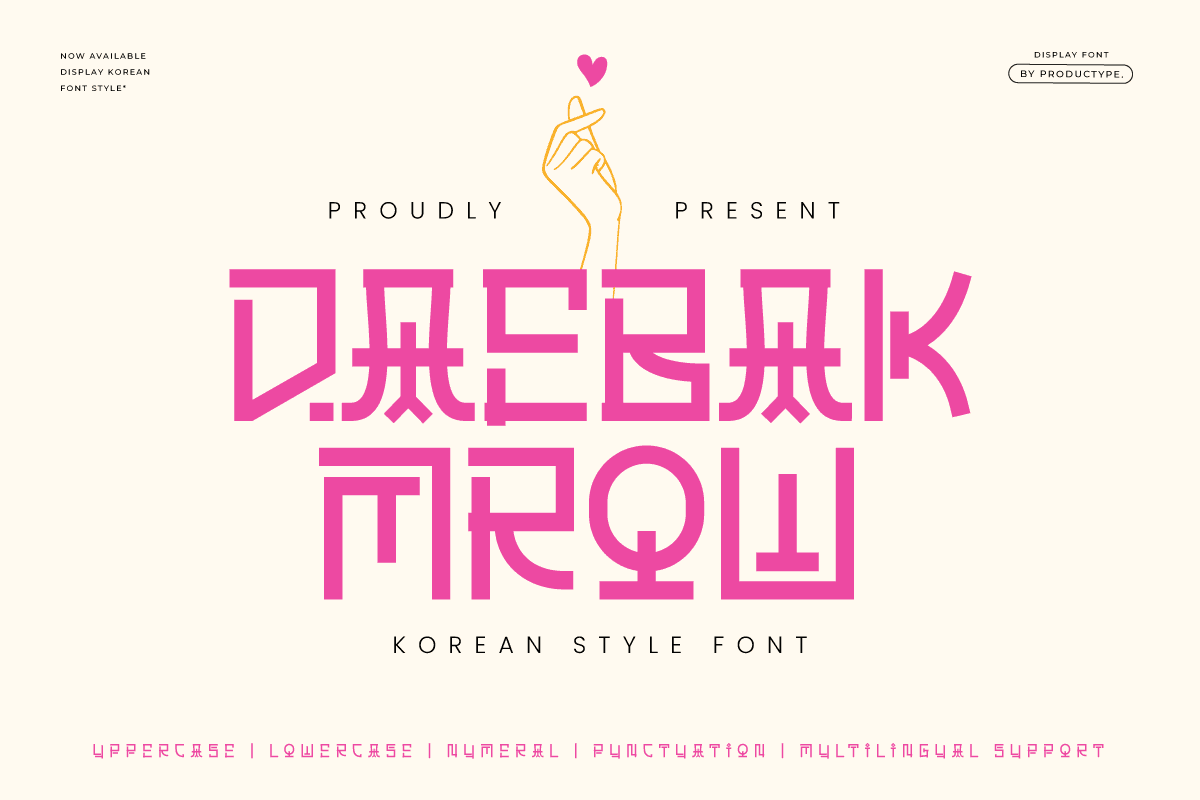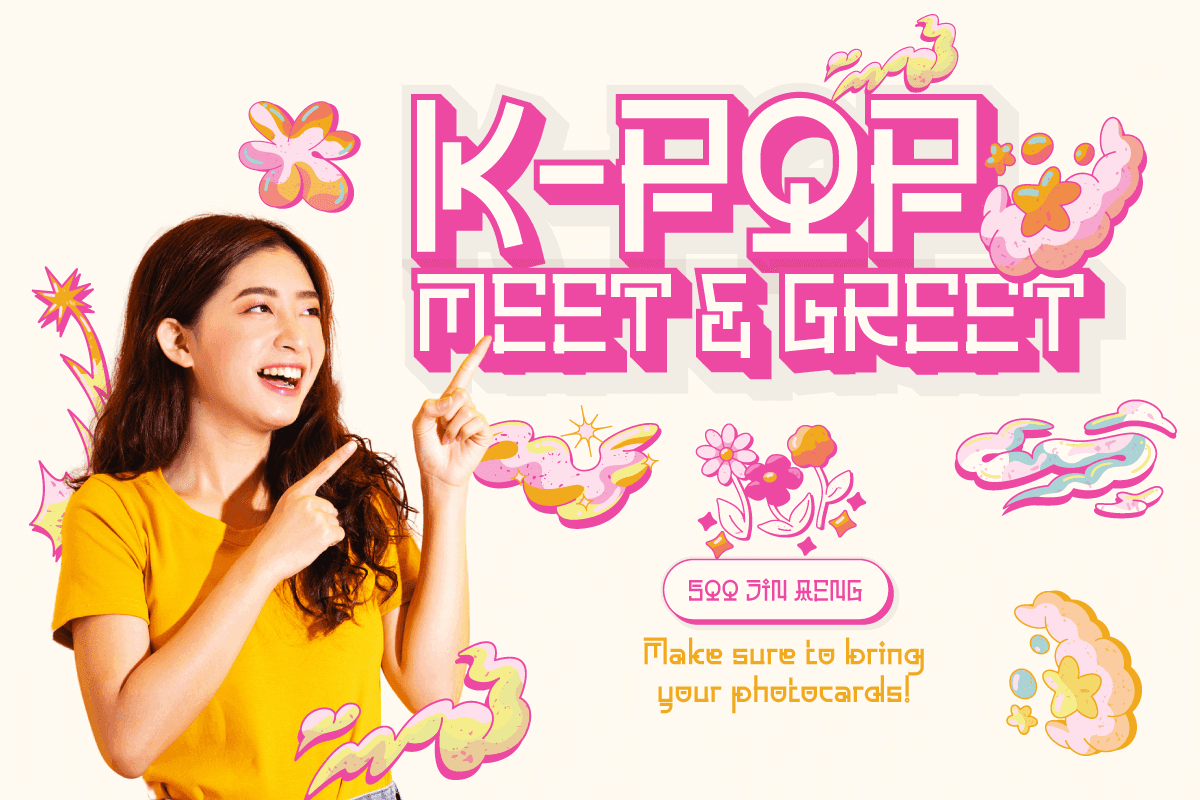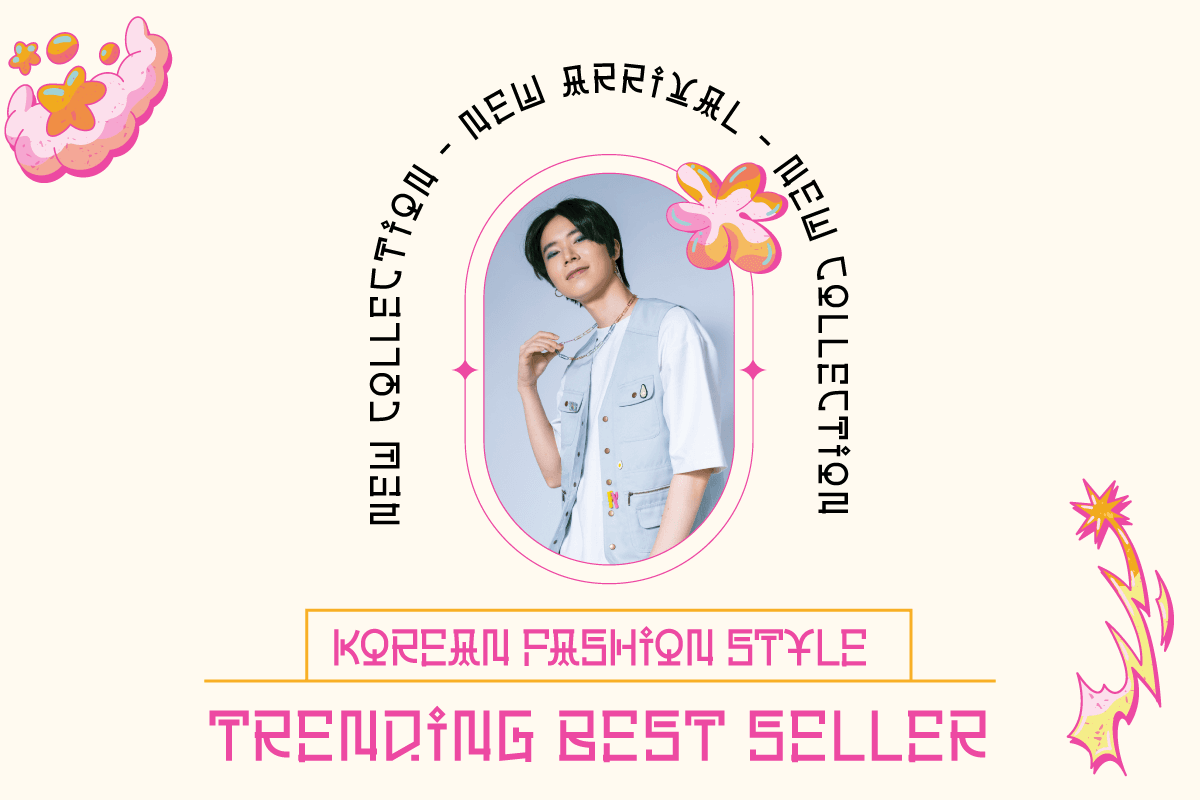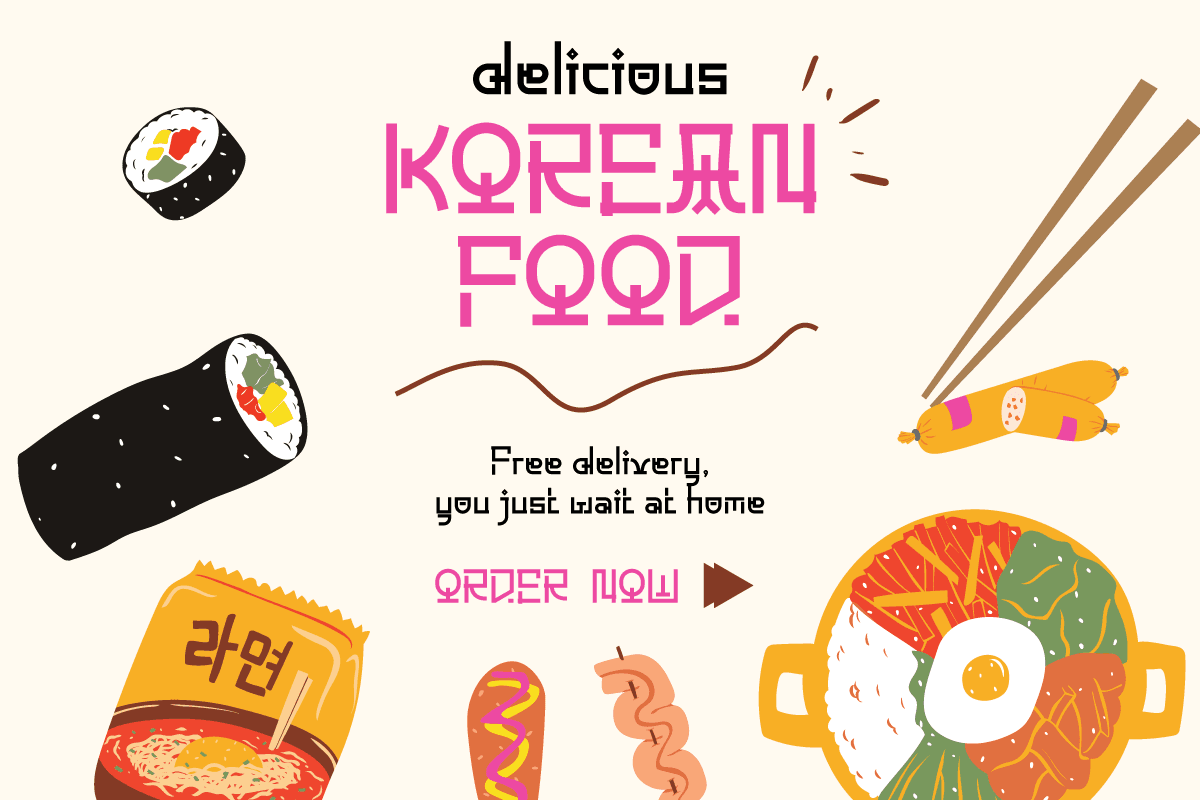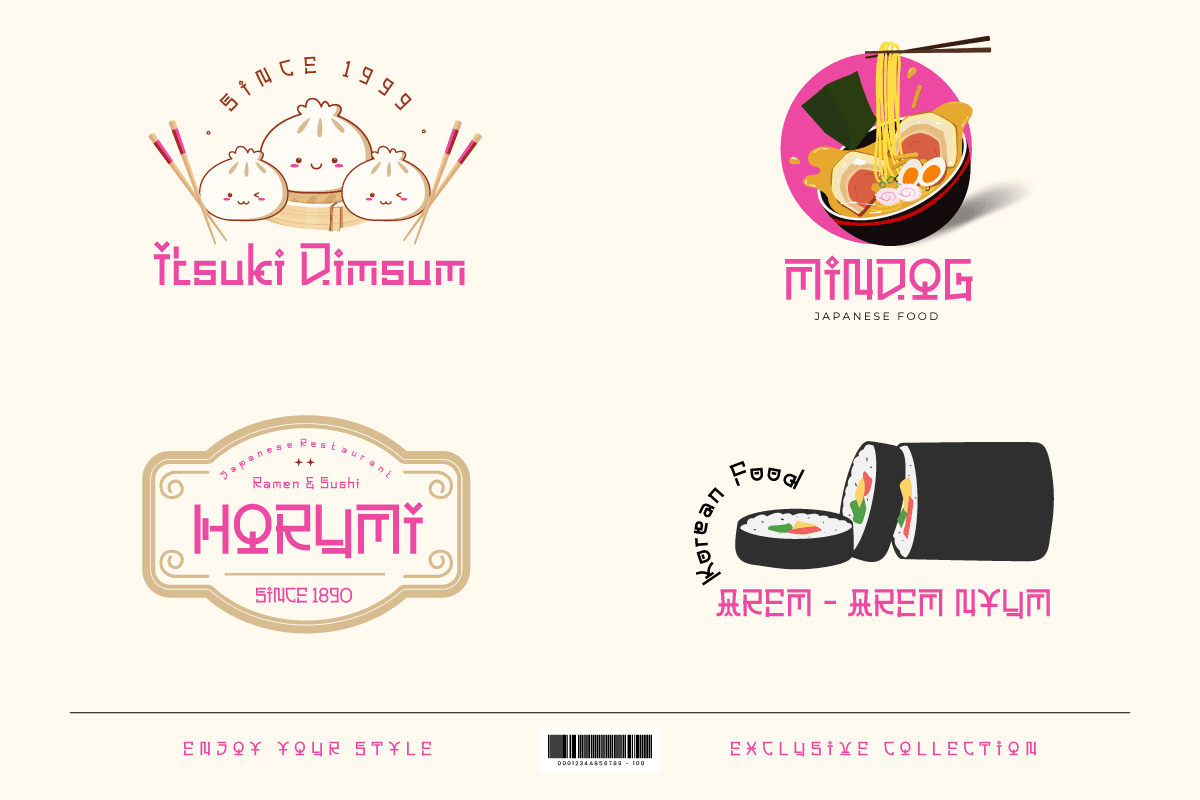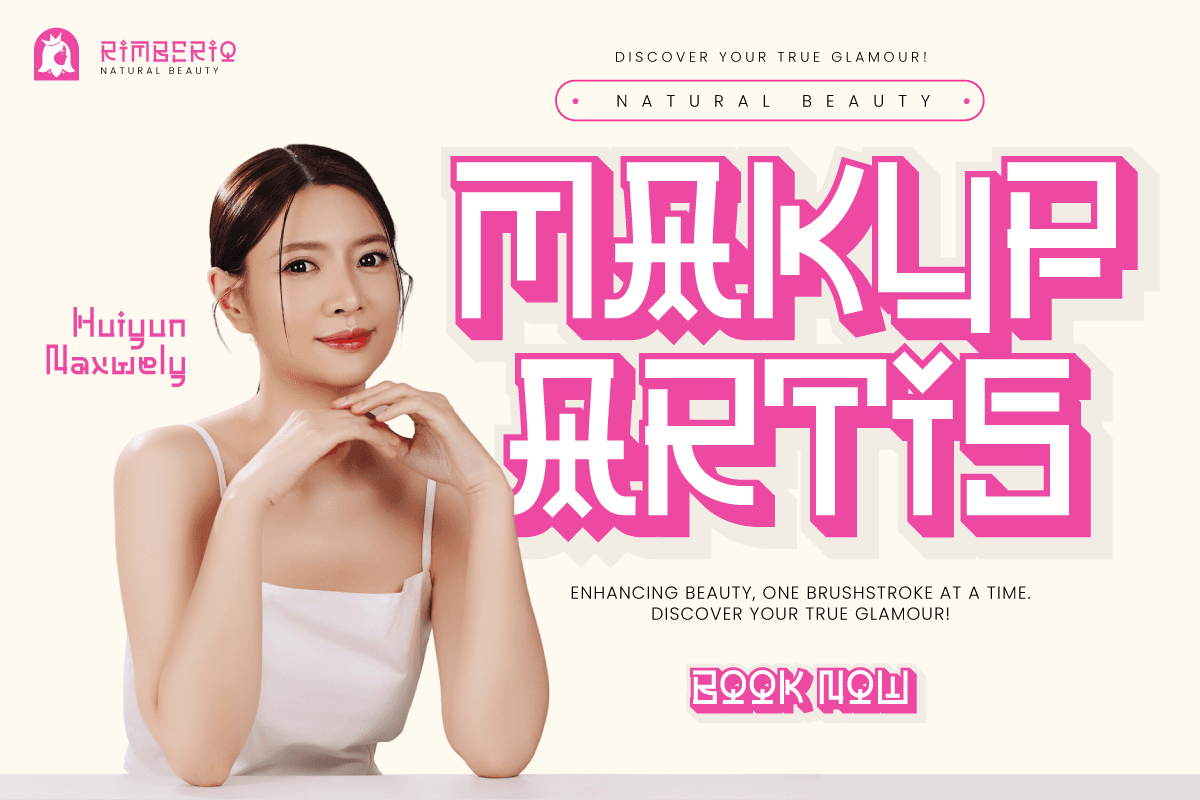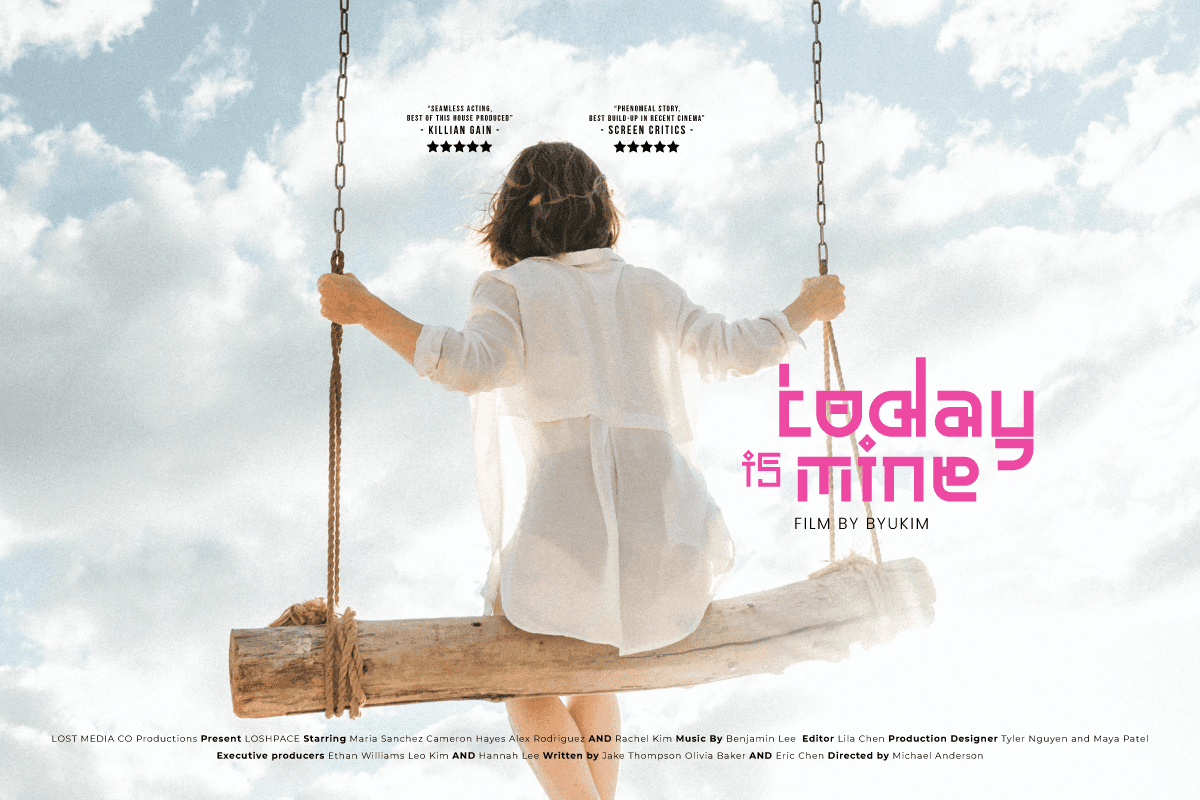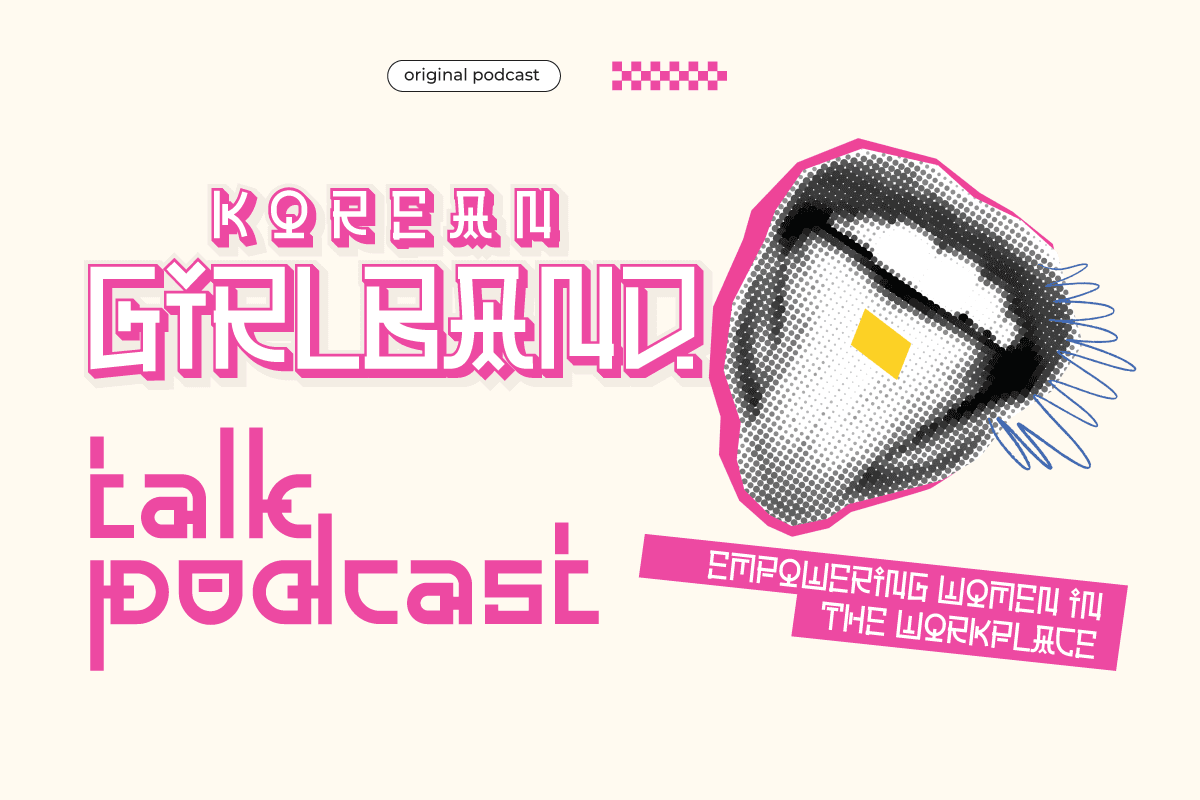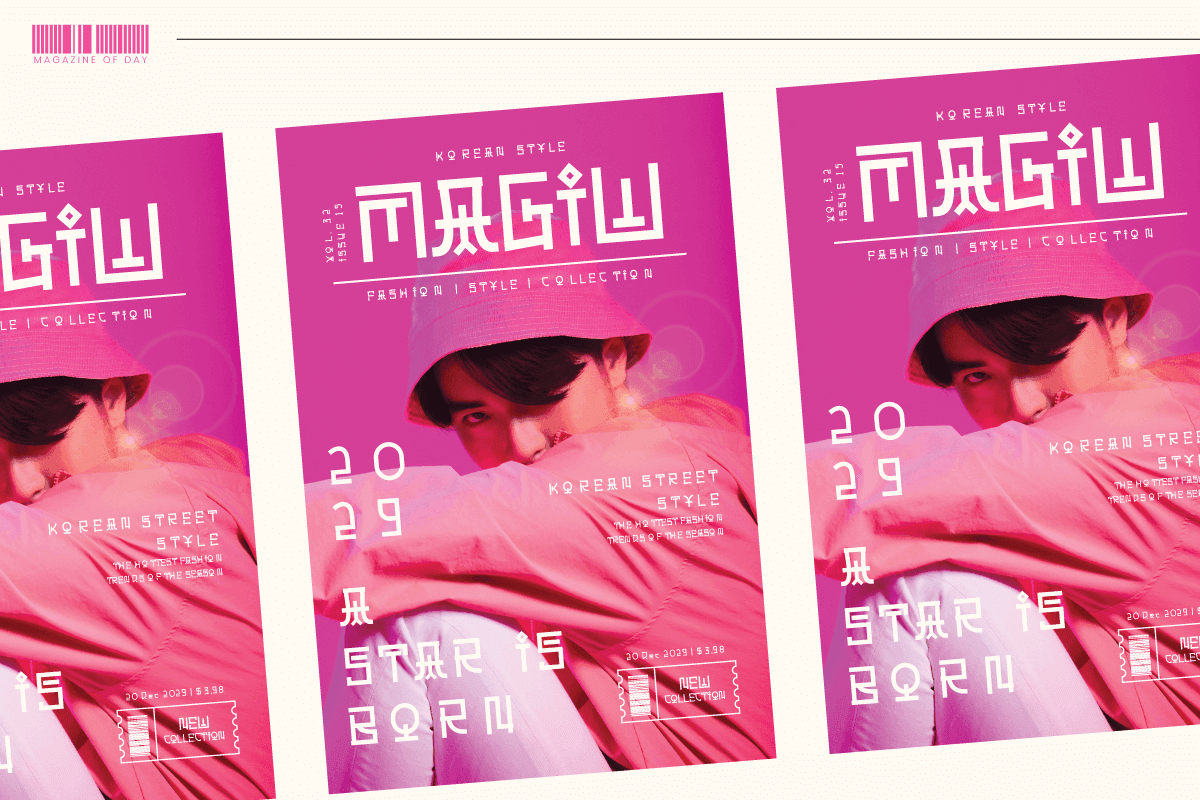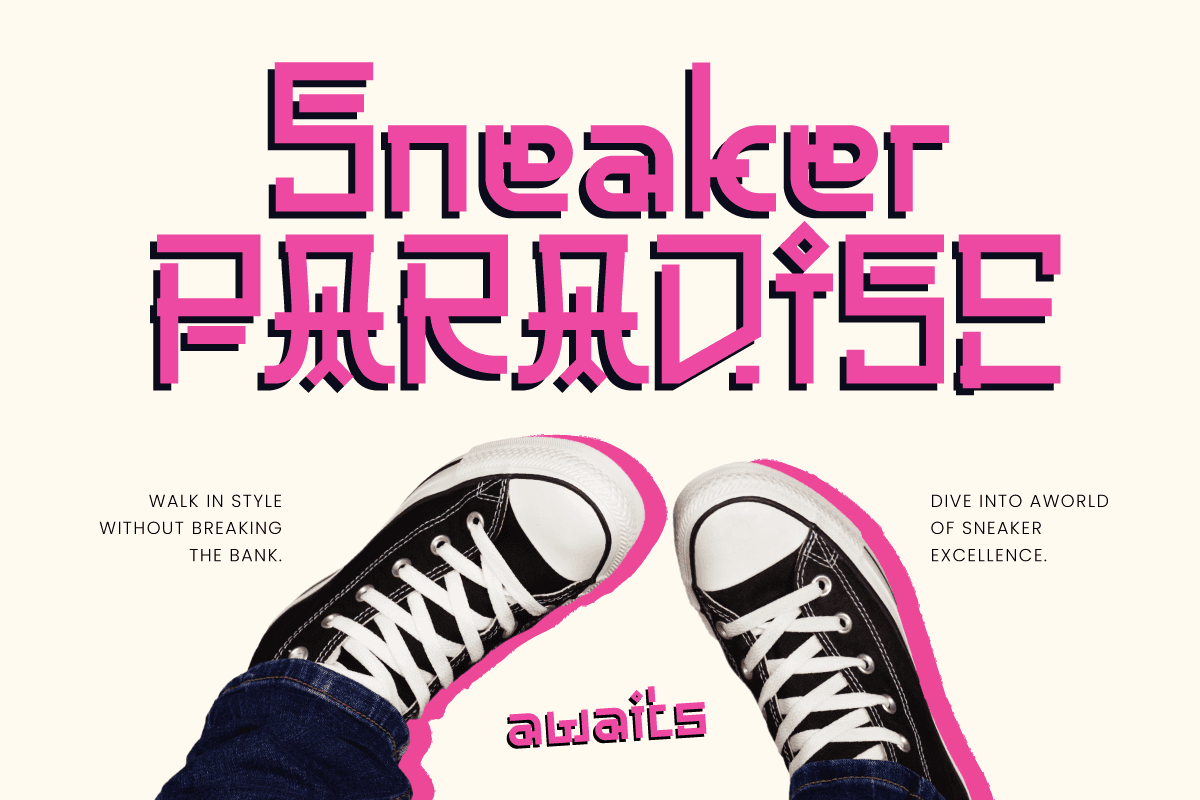
Welcome to the world of Korean beauty with Daebak Mrow, a font that exudes the charm and elegance of Asian culture. Each curve of the letters radiates warmth and softness, creating a charming and enchanting atmosphere in every design project.
Daebak Mrow is the perfect choice for branding projects, logo typography, and events that want to embrace the beauty of Asia. With a design that is easy to understand and learn, this font brings unique Korean elements to every work.
Let Daebak Mrow be your guide in exploring the beauty of Korean culture. With this font, bring a calming and mesmerizing feel to your designs, making every project a representation of timeless beauty.